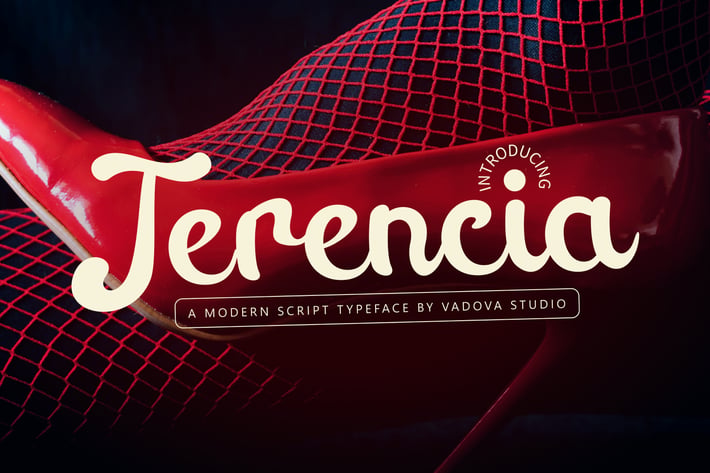
Terencia Modern Script Font
This elegant script font blends handwritten charm with modern sophistication, making it perfect for branding, fashion, and romantic-themed designs. With flowing curves and stylish flourishes, it is ideal for wedding invitations, signature logos, product packaging, and editorial layouts. Whether you're crafting a feminine brand identity or an expressive headline, this decorative font adds a personal and polished touch to any creative project.
Uppercase & Lowercase characters
* Numeral & Punctuations